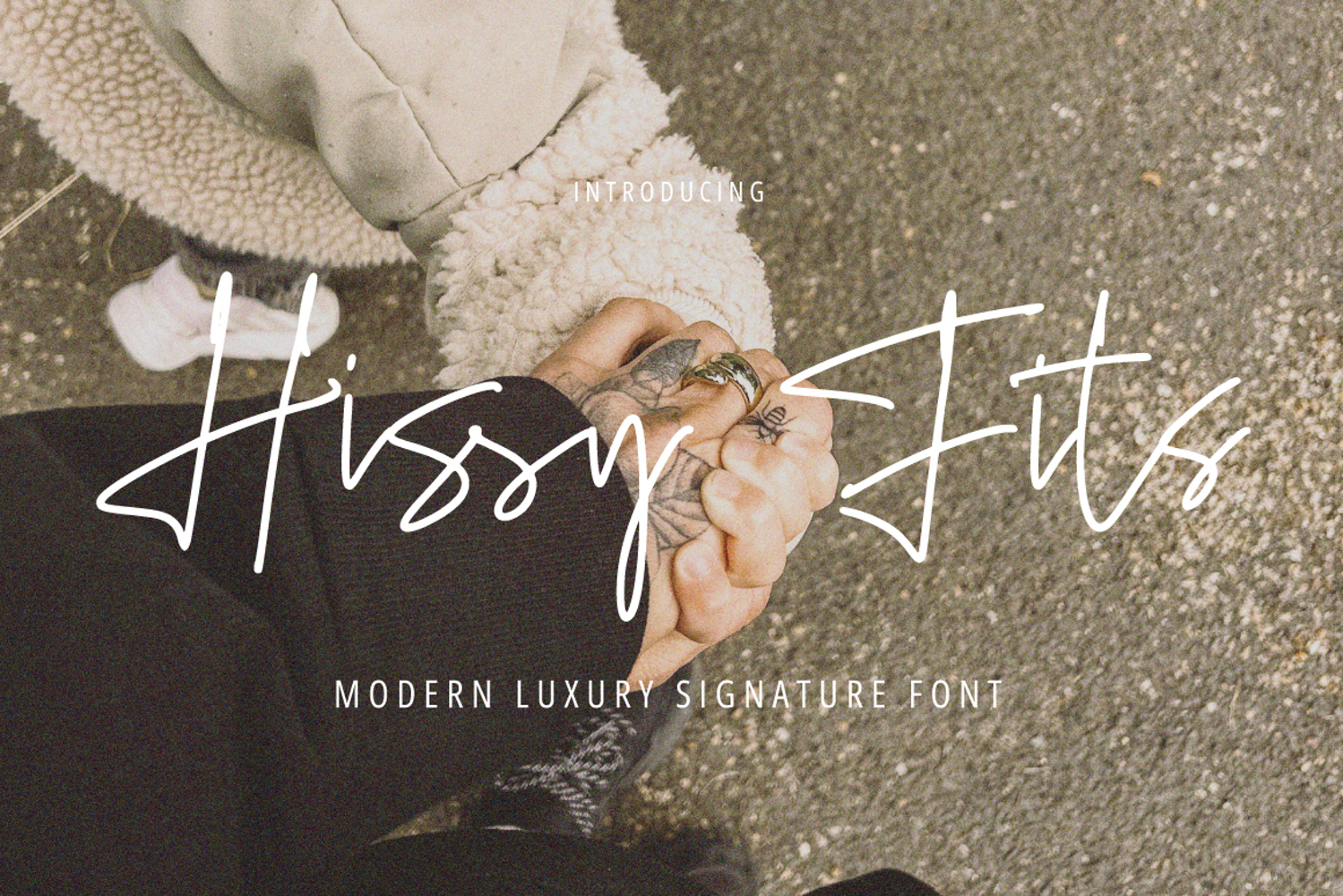
Hissy Fits Signature
The uniqueness of Signature Font lies in its ability to convey a strong and understated personality through every beautiful and captivating stroke of the letter.
Hissy Fits Signature